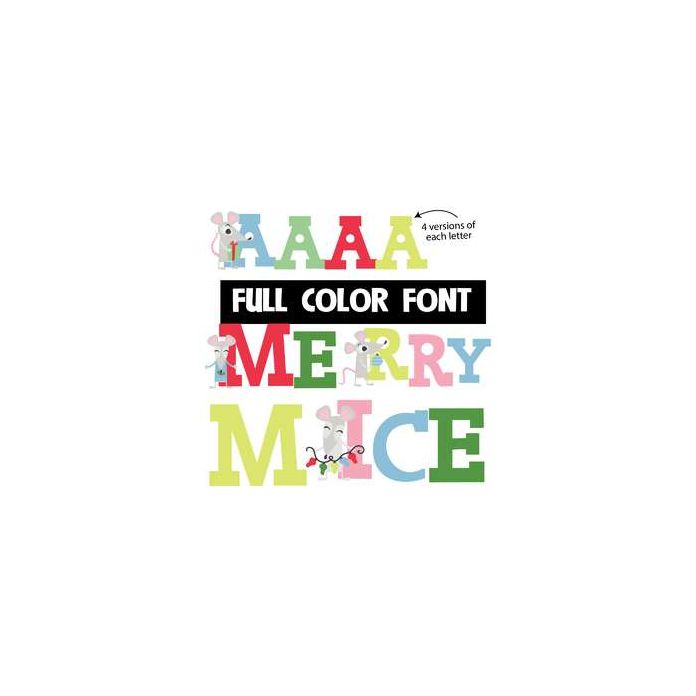
This full-color font features Christmas mice and three lowercases without mice that you can access through your system's character map. This font works best for titles, displays, posters and more. Please note color fonts will show as black in non compatible programs. This font type is compatible with Silhouette Studio.